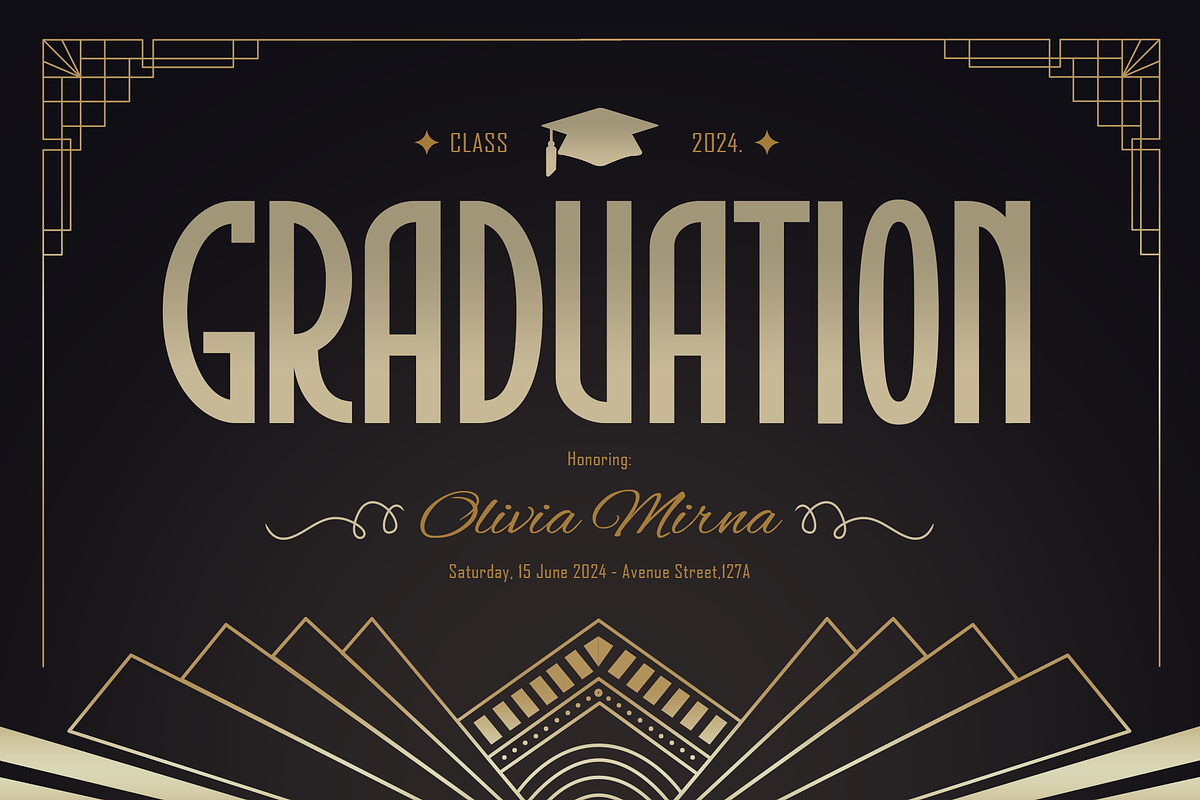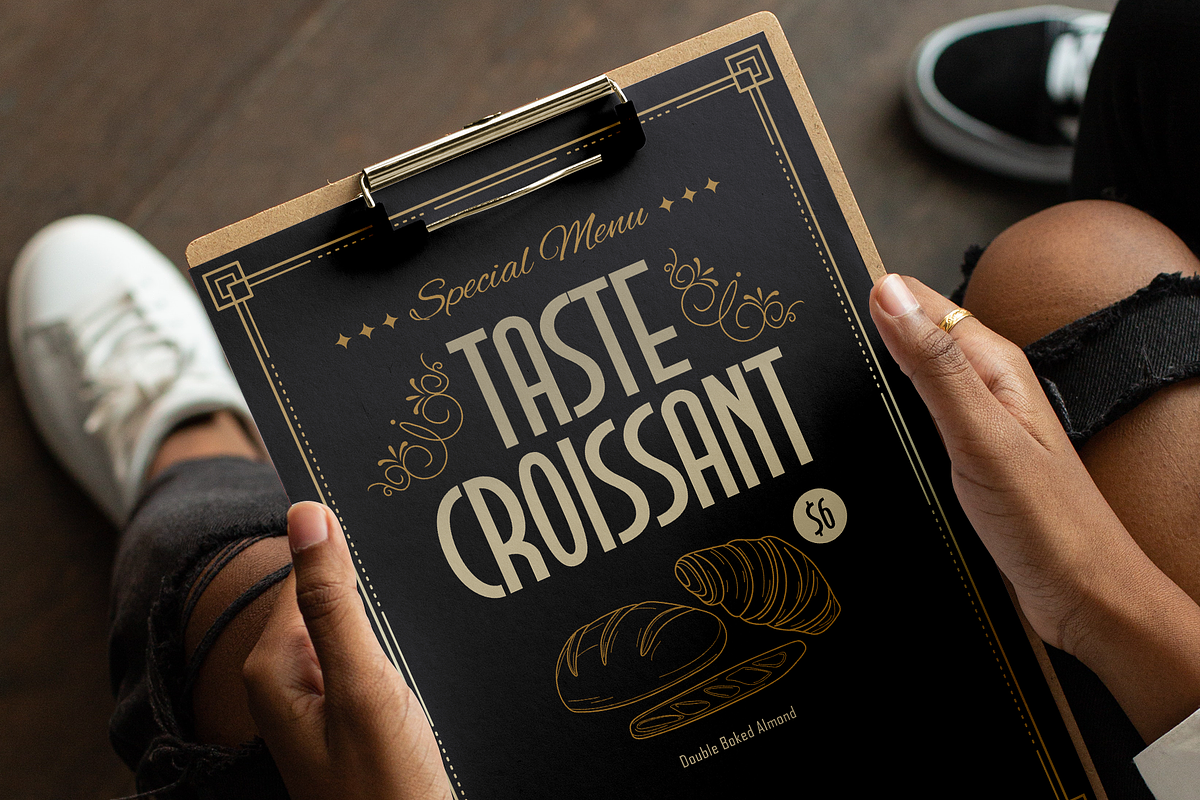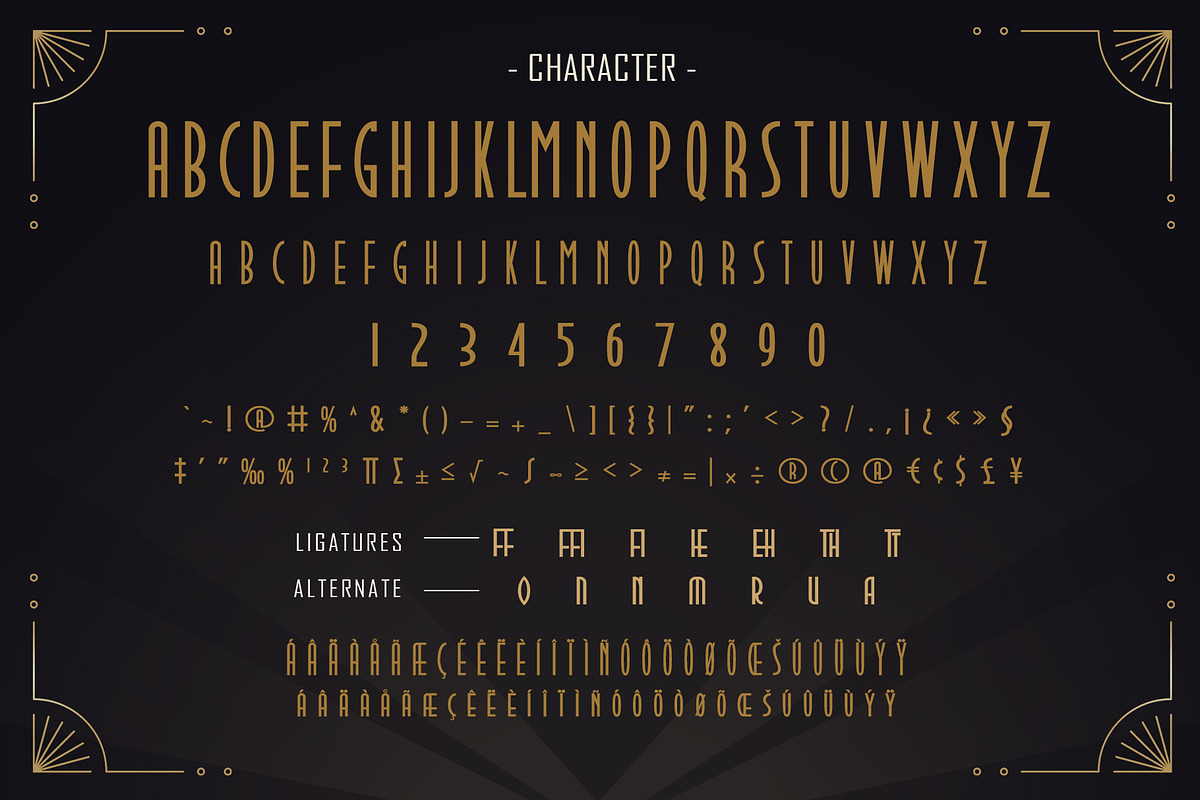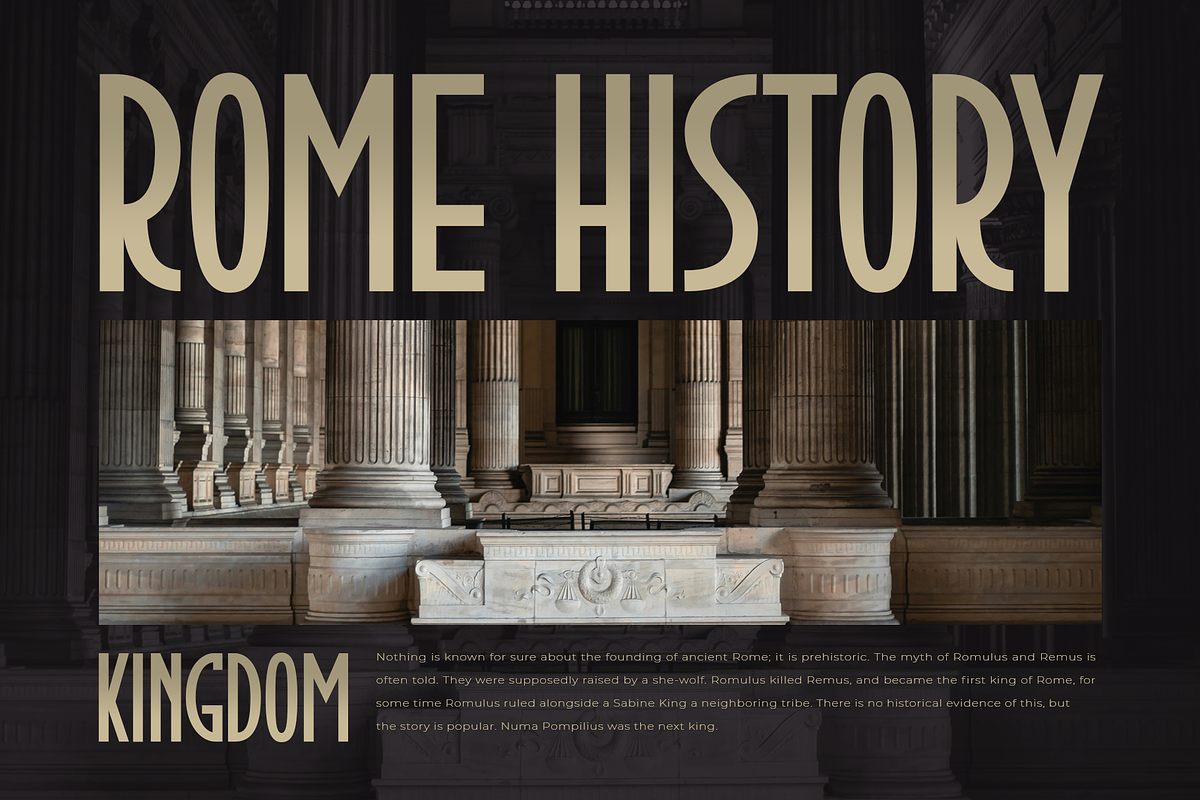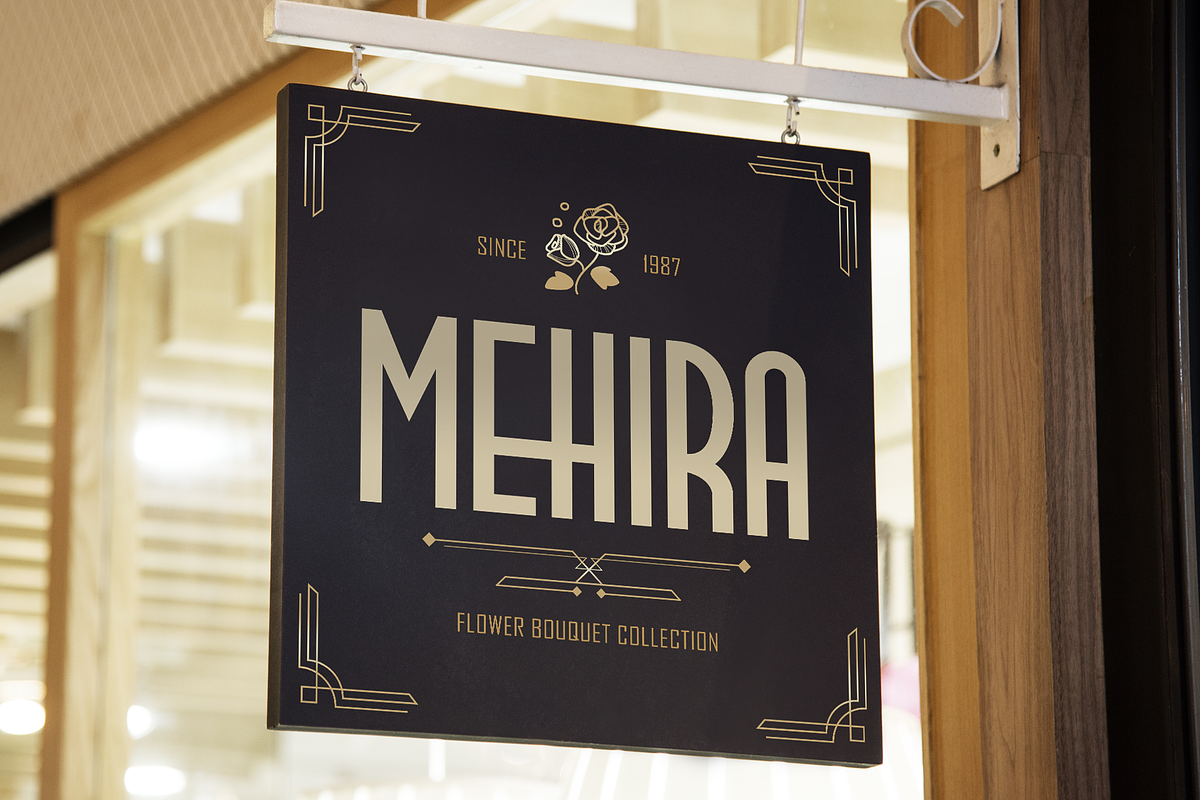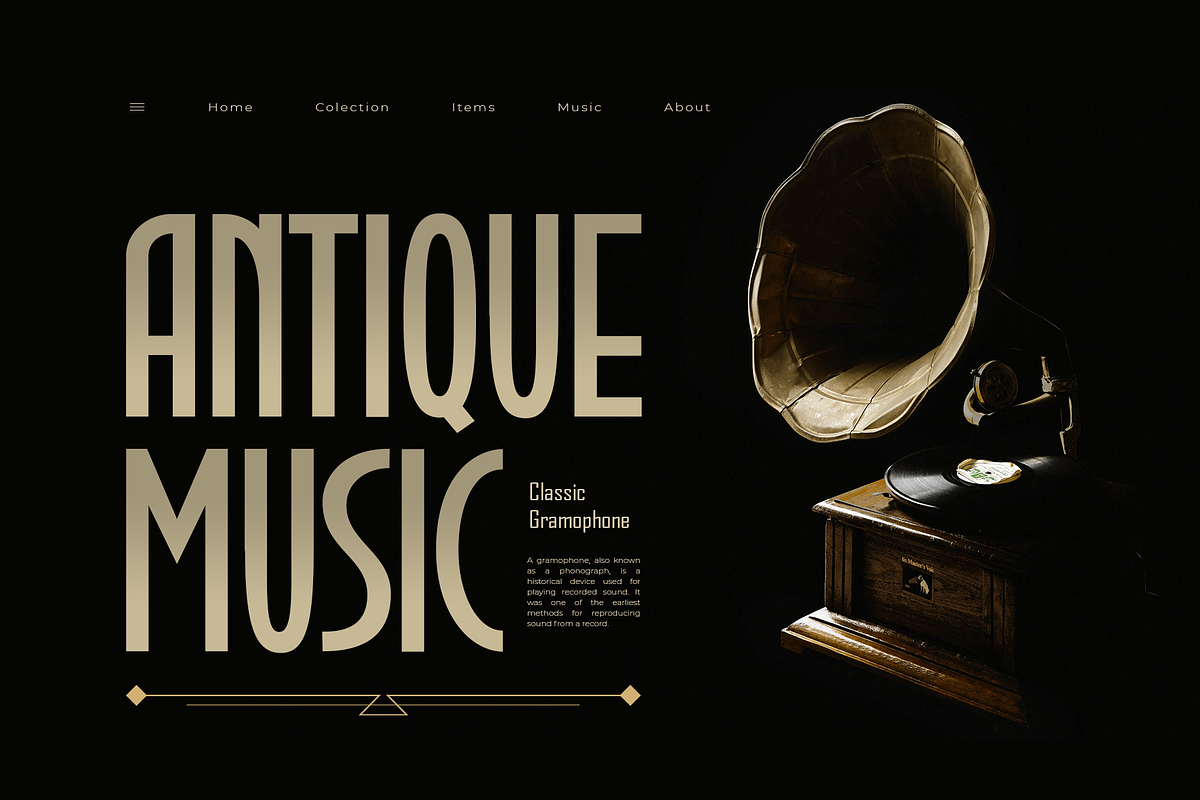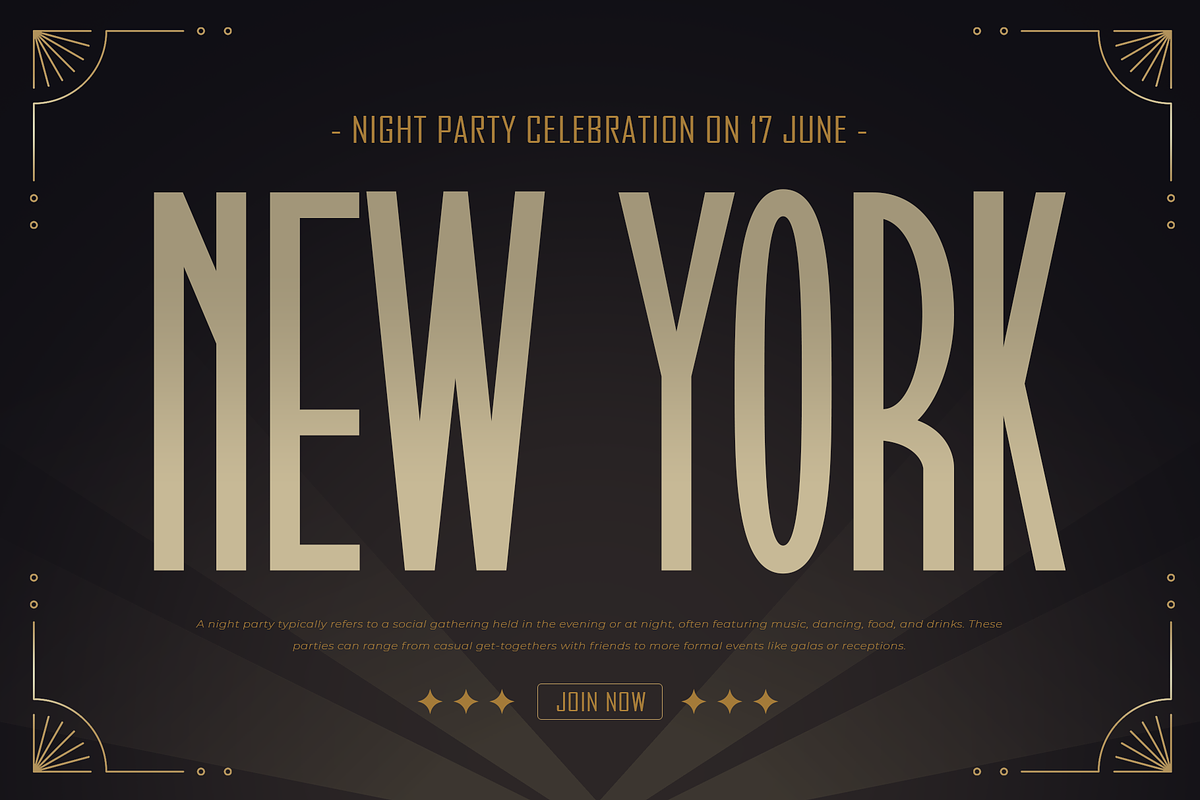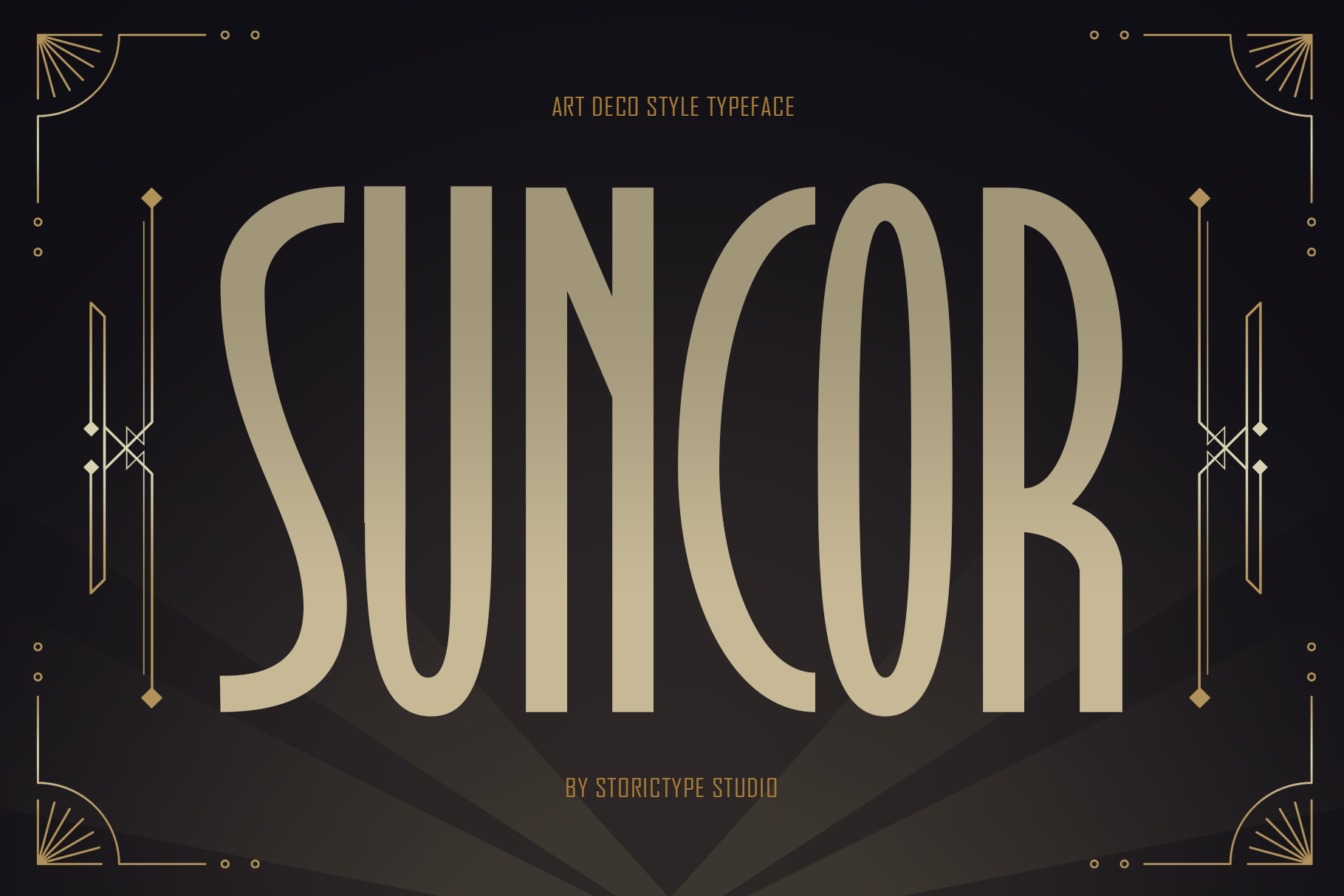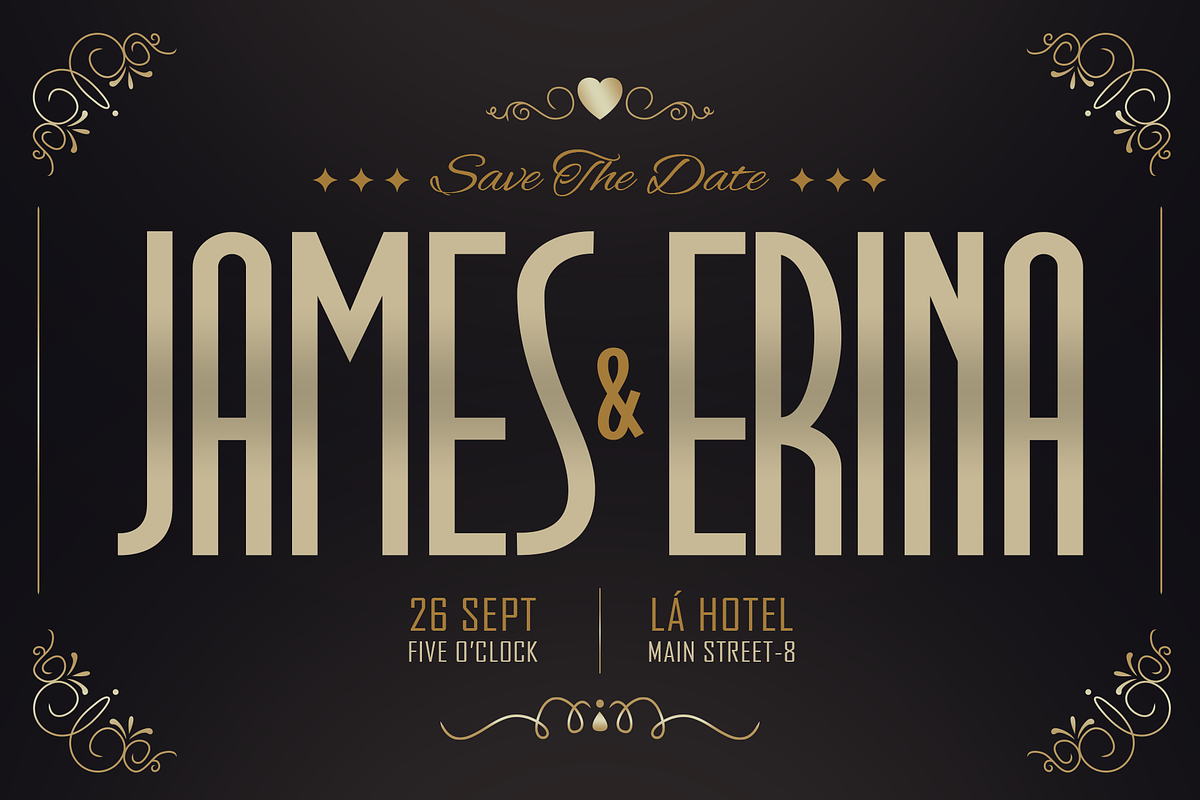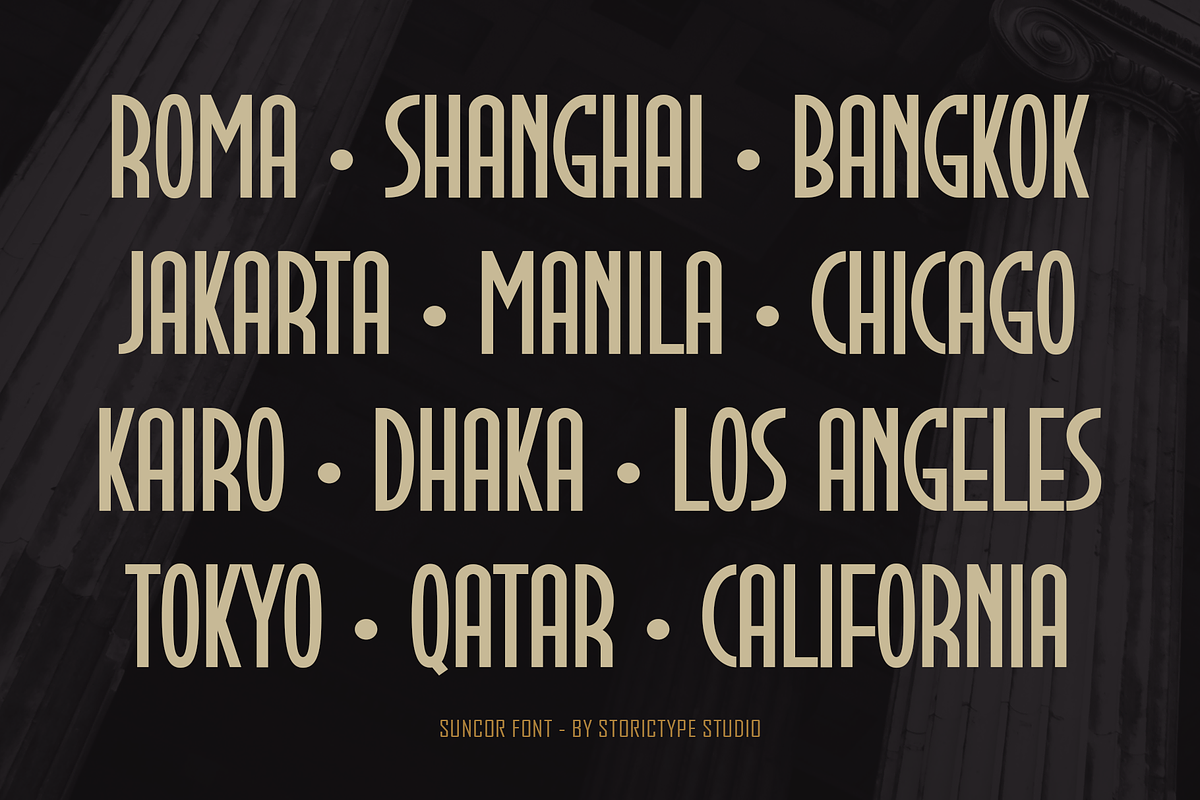
Suncor - Art Deco Style Font
Introducing Suncor a new font with an art deco style. With a classic and elegant style, it will give your product design a classic, modern and elegant feel, perfect for adding a unique touch to logos, brand identity, or modern typographic designs.
- Numeric
- Stylistic Alternates for select characters
- Multilingual Characters